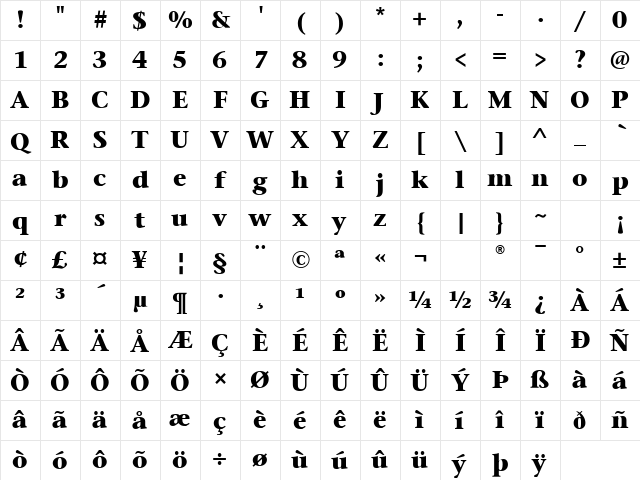
Stone Serif ITC Medium Bold
Stone Serif ITC Medium Family
Complete Stone Serif ITC Medium Bold glyph index. Displaying only characters natively supported by Stone Serif ITC Medium Bold font.
Design Context for Stone Serif ITC Medium
Stone Serif ITC Medium carries the refined structure of traditional serif typography, with bracketed terminals and considered proportions that communicate credibility and craft. Its bold stroke weight gives it real presence on the page.
Pro Tip: Use Stone Serif ITC Medium for editorial body copy and considered headline work. Pair with a neutral sans for UI elements or captions to create a classic hierarchy.